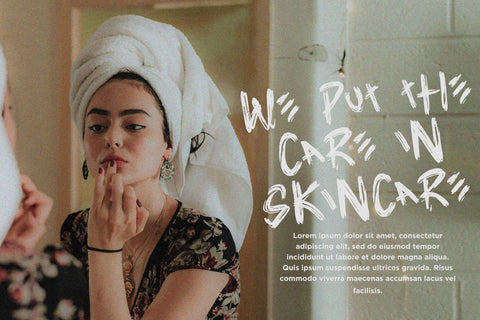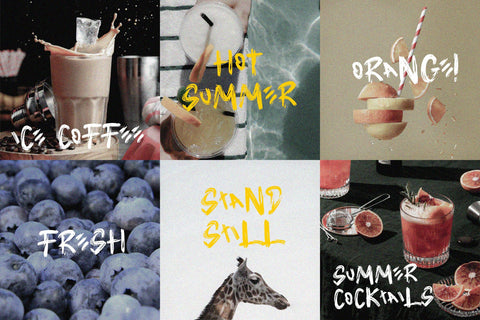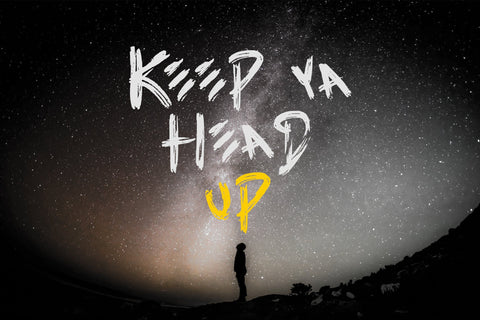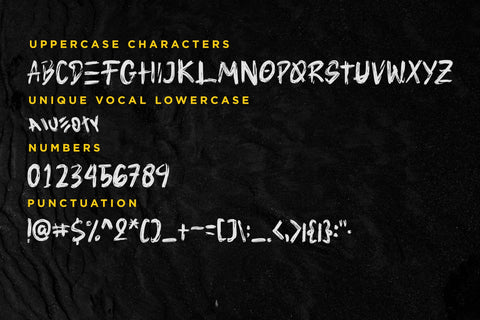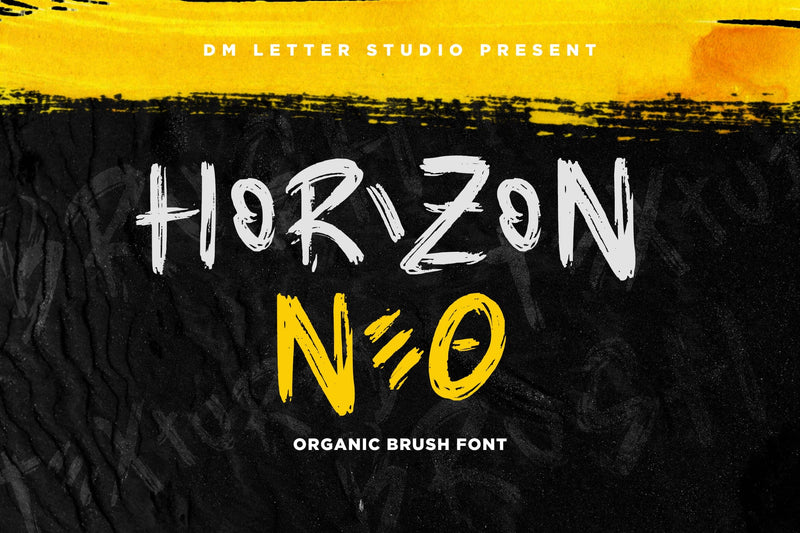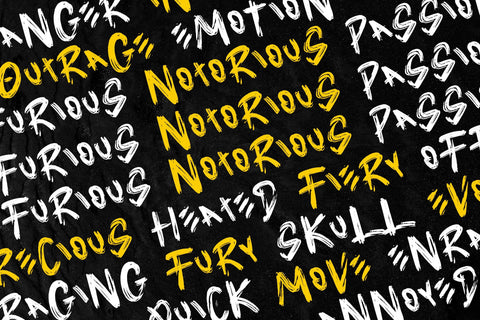
Horizon Neo Font
Horizon Neo – Organic Brush Font
Horizon Neo is a bold and expressive brush font featuring natural, hand-painted strokes. Designed to capture the raw energy of brush lettering, this typeface is perfect for branding, social media graphics, packaging, posters, and creative projects that require a dynamic and organic feel. With its textured and flowing strokes, Horizon Neo adds a handcrafted and artistic touch to any design.
- Organic Brush Style: Hand-painted strokes for a natural and artistic appearance.
- Perfect for Creative & Bold Designs: Ideal for branding, posters, social media, packaging, and handmade projects.
- Expressive & Dynamic Aesthetic: Adds a raw, energetic feel to any design.
- Complete Character Set: Includes uppercase, lowercase, numbers, punctuation, and multilingual support.